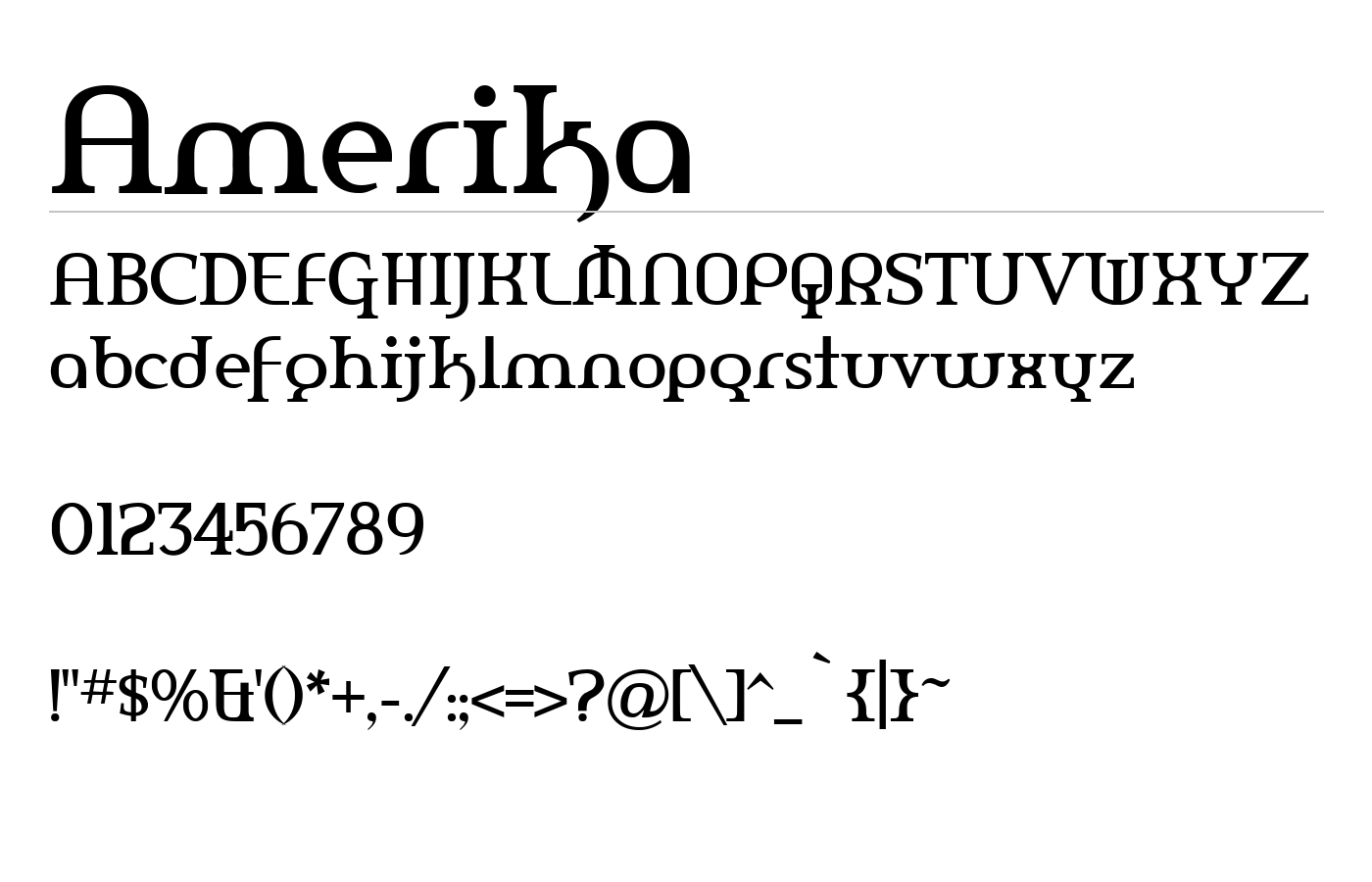
Amerika is a distinctive serif font with a strong character, featuring medium weight and normal width. Its vintage-inspired letterforms showcase moderate contrast and unique, slightly geometric serifs with subtle curvature, giving it a refined yet approachable personality ideal for branding, editorial headlines, and packaging that seek a classic but modern feel. This font works well for designs that want to stand out with a touch of elegance and originality.
Amerika Font
About Amerika Font
| Designer | Apostrophe |